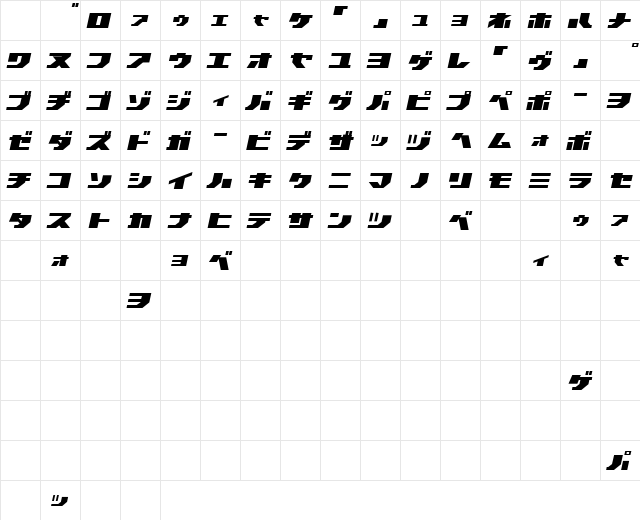
TGR 3.0 J is a composed and adaptable typeface that performs quietly and consistently across a wide range of design contexts. The slanted form adds forward momentum and visual energy.